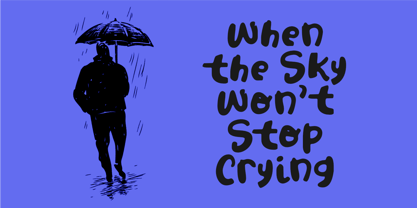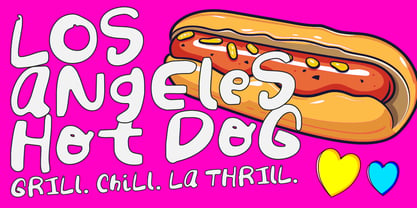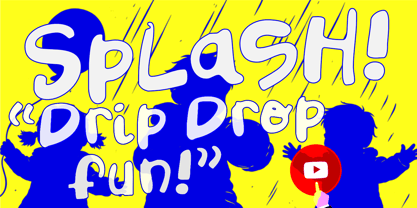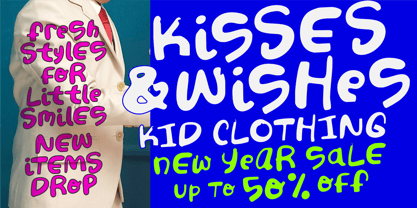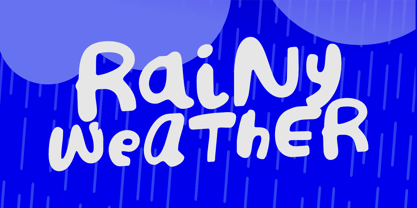
Rainy Weather
The Rainy Weather Font Family was designed by Aldy Sidik and published by Epiclinez. Rainy Weather contains 1 styles. More about this family
Rainy Weather is a cute, fun, and adorable handwritten display font inspired by playful rainy days, puddle splashes, and cheerful childhood moments. With its bouncy letterforms, soft curves, and whimsical personality, this font brings a lighthearted charm to every design. Each character is crafted with a natural, hand-drawn feel, making it perfect for creating warm, friendly, and joyful visuals. Whether you're designing posters, logos, movie titles, or gaming graphics, Rainy Weather adds a delightful touch of imagination and fun. Perfect for kids-themed projects, cartoon designs, branding, packaging, social media, and anything that needs a splash of happiness and creativity. Let your designs dance in the rain with this lovable and expressive typeface